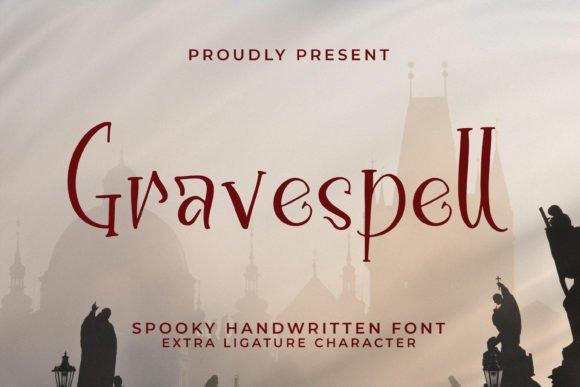
Enter the enchanting realm of Gravespell, a captivating script font born from the creative mind of Integritype Studio. With its hauntingly beautiful strokes, Gravespell casts a spellbinding allure, leaving an indelible impression on all who behold it.
Indulge in the mystique of Gravespell, a font woven with an enigmatic aura, reminiscent of ancient spells and whispered secrets. Let your imagination run wild as you craft logos that conjure visions of forgotten times, branding projects imbued with a touch of mystery, and homeware designs adorned with an air of enchantment.
Unleash your creativity with Gravespell, a font that elevates product packaging to an art form, transforming mundane objects into vessels of intrigue. Envision mugs etched with enchanting quotes, posters that whisper tales of untold legends, and shopping bags adorned with cryptic symbols.
Adorn your t-shirts with Gravespell's bewitching charm, turning them into canvases for your imagination. Let your book covers evoke a sense of wonder, capturing readers' hearts with their captivating titles. Craft name cards that exude sophistication, invitation cards that hint at hidden realms, and greeting cards that carry messages of magic and awe.
With Gravespell, labels become more than mere identifiers; they transform into enigmatic riddles, inviting recipients to unravel their secrets. Watermarks imbued with Gravespell's allure add an air of intrigue to your designs, while special events adorned with its presence take on an aura of enchantment.
Gravespell is the font of choice for those who seek to infuse their projects with a touch of the extraordinary, a whisper of the unknown. Let its enchanting strokes guide you, as you create designs that captivate, inspire, and leave an everlasting impression. Embrace the magic of Gravespell today.